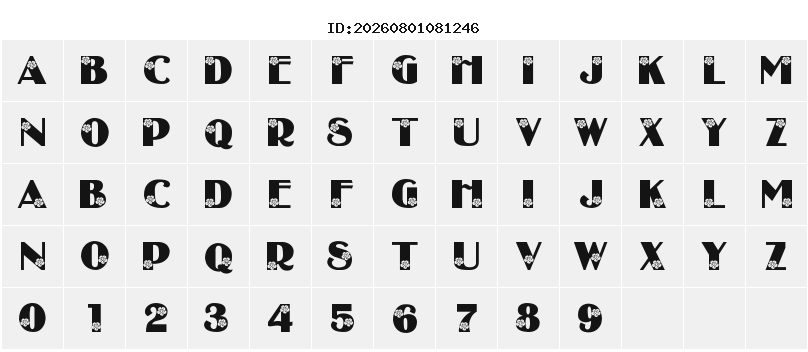
LMS Courtni's Daisys Preview
• Font Name: LMS Courtni's Daisys
• Full Font Name: LMS Courtni's Daisys
• Character Count: 63
About LMS Courtni's Daisys.ttf
LMS Courtni's Daisys.ttf is a modern, elegant sans-serif font designed for ultimate readability and visual harmony. Perfect for branding, headlines, web design, and print materials.